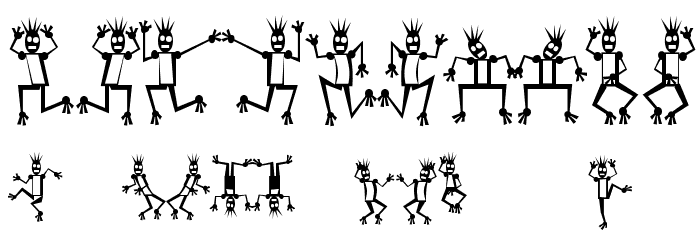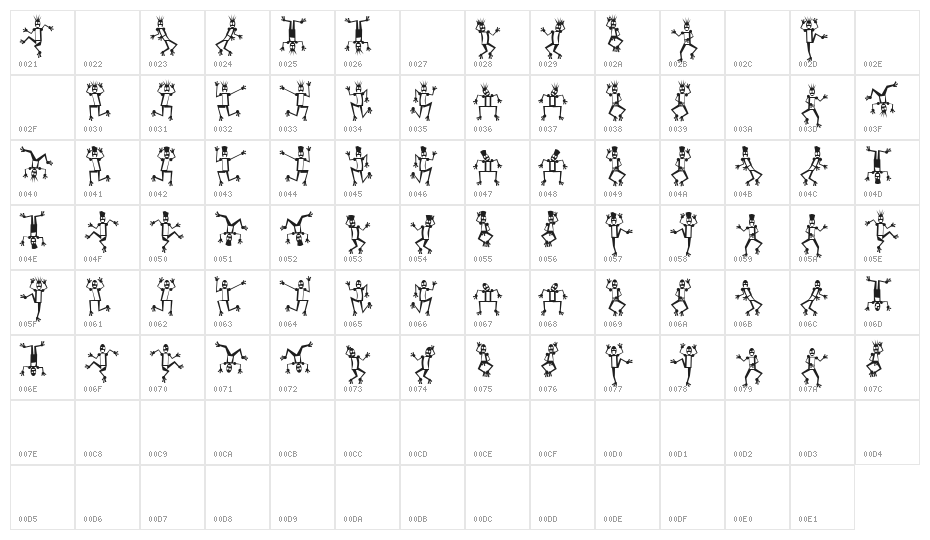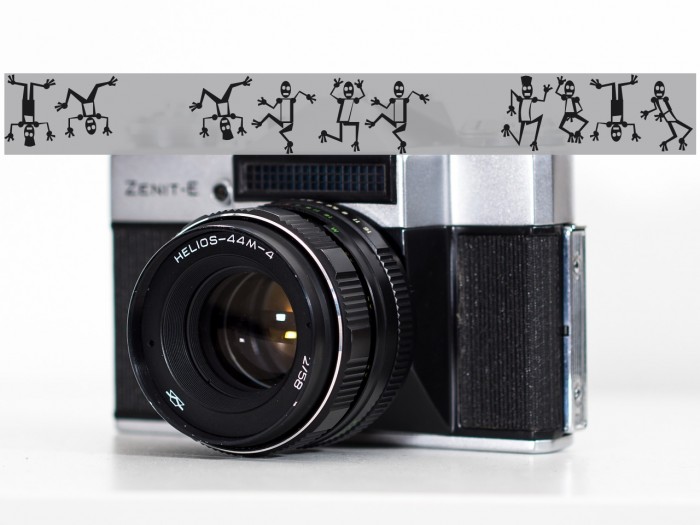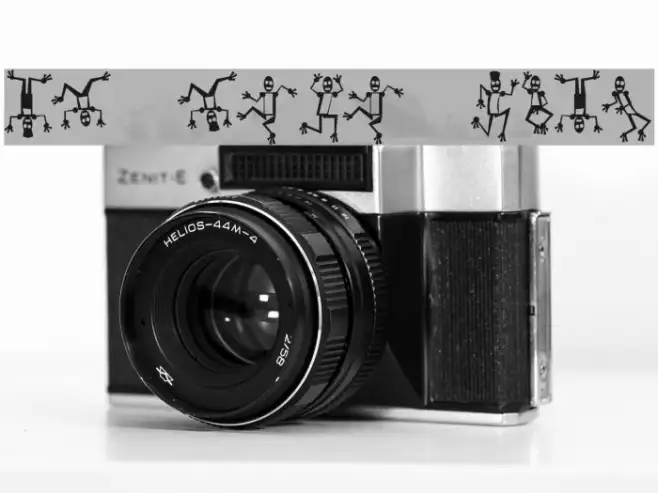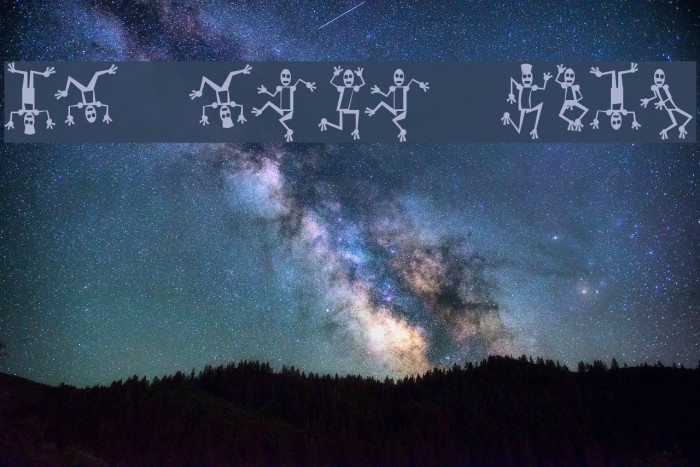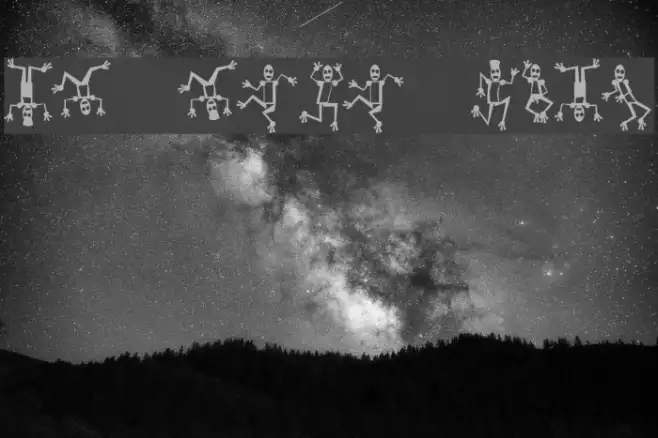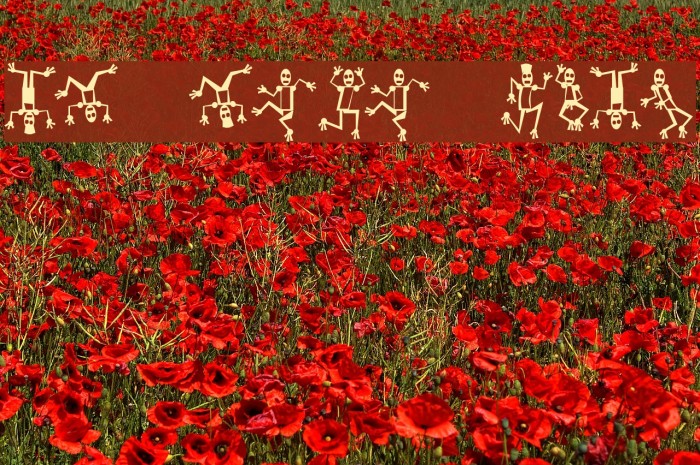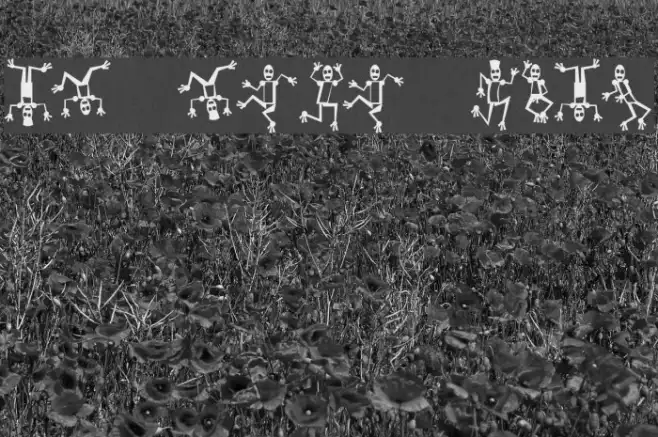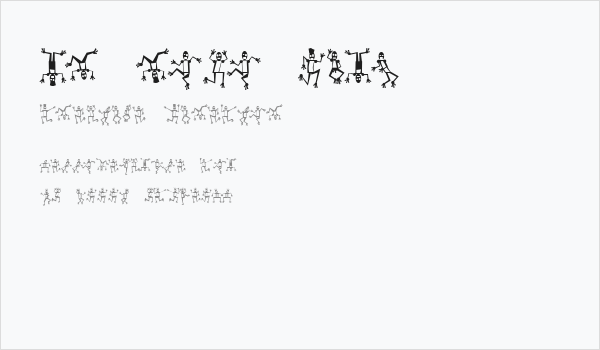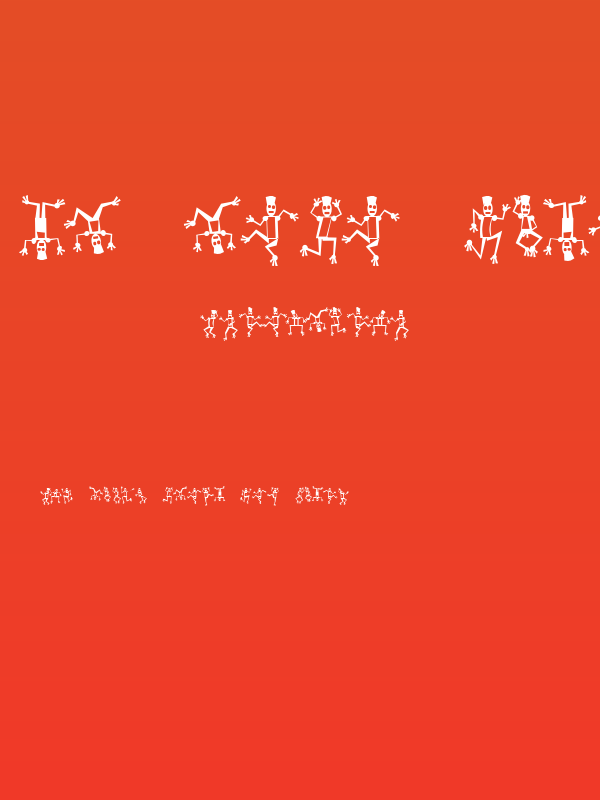
Mr Robo Funk Font
Mr Robo Funk Description
This font features a unique and playful design, where each character is represented by a stylized robot figure. The robots are depicted in various dynamic poses, giving a sense of movement and energy. The design is highly decorative, with each character having distinct features such as arms, legs, and expressive faces. This font is ideal for creative projects that require a fun and whimsical touch. The characters are evenly spaced, ensuring readability while maintaining their quirky charm. The overall style is modern and artistic, making it suitable for a variety of applications.
| Proposed Projects | Ideal for children's books, creative posters, party invitations, and playful branding projects. |